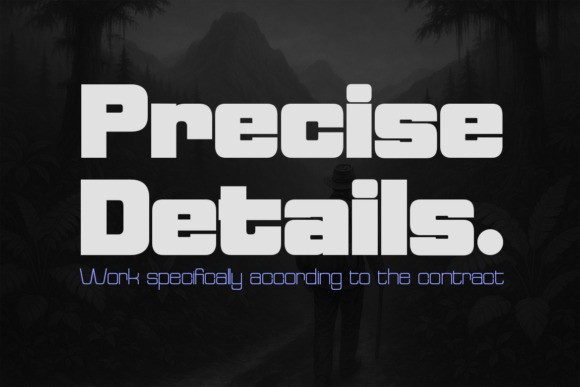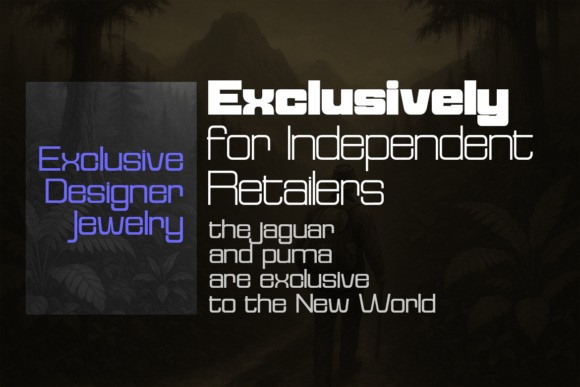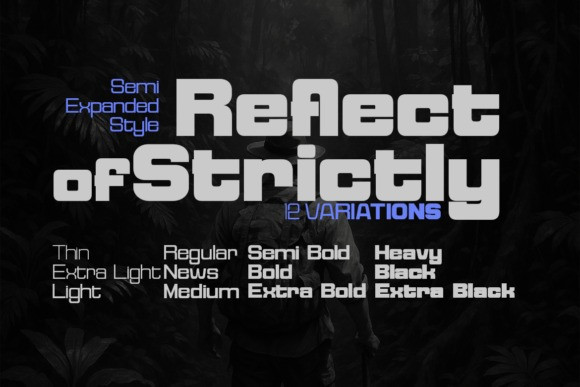
Reflect Of Strictly Semi Expanded Font
Reflect Of Strictly Semi Expanded Font is a semi-expanded sans serif font that strikes the perfect balance between the familiar and the unexpected. Designed with elegance and versatility in mind, it offers a distinctive style that allows designers to create modern yet timeless works.
Unlike ordinary sans serif families, Reflect of Strictly is expressive and assertive, with unique glyph details that bring a cool, stylish touch to any project. Its flexibility makes it stand out, offering both character and functionality.
This font carries a vintage charm while supporting clean, contemporary aesthetics—making it ideal for use across both print and digital media. From fashion magazines and branding projects to web design, logos, and film titles, Reflect of Strictly adapts beautifully to diverse applications.
With multiple weights available, you can experiment across headlines, captions, paragraphs, posters, and more. Reflect of Strictly is designed to impress, delivering bold impact while maintaining readability and refined beauty.